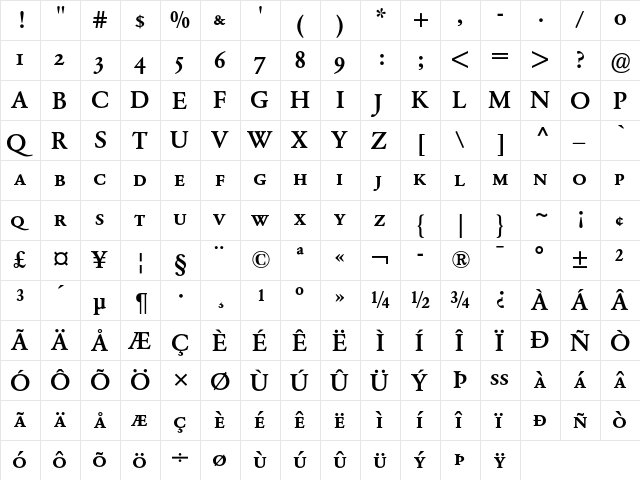
Garamond BE Medium SC
Design Context for Garamond BE Typeface
Garamond BE offers clean, dependable letterforms without strong stylistic allegiance, making it a practical choice for designers who need flexibility.
Pro Tip: Use Garamond BE in both headline and body roles to test its range before committing to a single application.